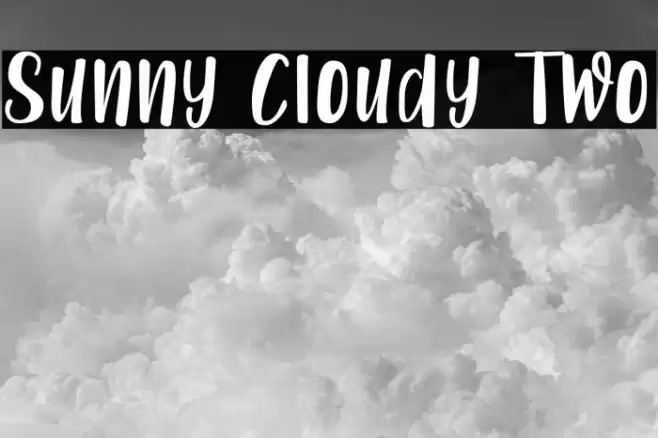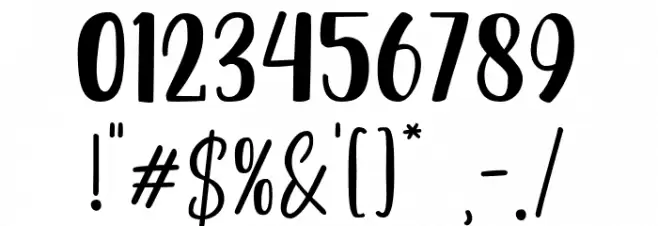
Sunny Cloudy Two Font
Sunny Cloudy Two Description
This playful and energetic font features a handwritten style with a modern twist. The characters are bold and slightly condensed, giving them a strong presence on the page. Each letter has a unique flair, with varying stroke widths that add a dynamic and lively feel. The uppercase letters are tall and commanding, while the lowercase letters maintain a consistent flow with rounded edges and smooth curves. The numbers are equally bold, ensuring they stand out in any design. Special characters are creatively designed to match the overall aesthetic, making this font versatile for various uses.
A bold, handwritten font with a playful and modern style from Cartoon fonts.
- Proposed Projects: Ideal for branding projects, social media graphics, posters, and invitations where a lively and personal touch is desired.